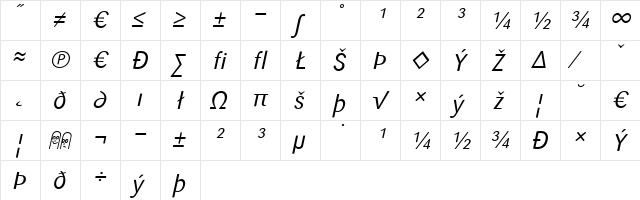
Sari Italic Font Preview
Sari Italic
Sari Italic Font Details
Design Context for Sari Typeface
Sari takes a measured approach to typography — its balanced proportions and neutral character make it a reliable workhorse for both digital and print work. The slanted form adds forward momentum and visual energy.
Pro Tip: Try Sari for annotation and caption copy alongside an upright companion — the contrast in angle creates a dynamic but ordered typographic system.